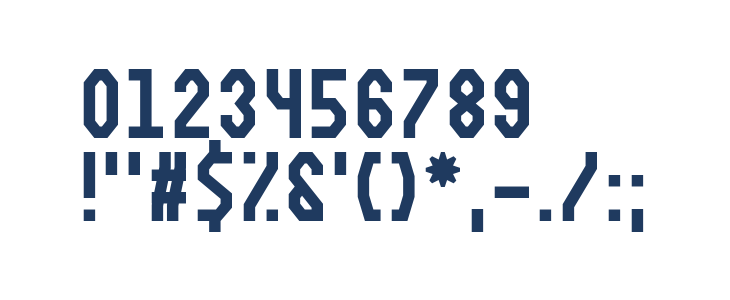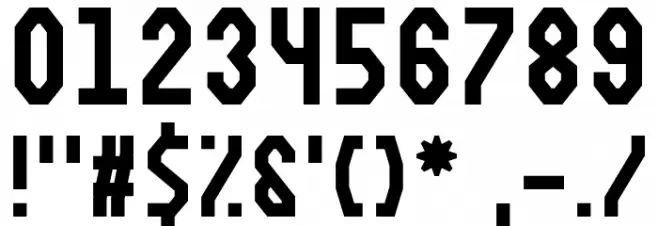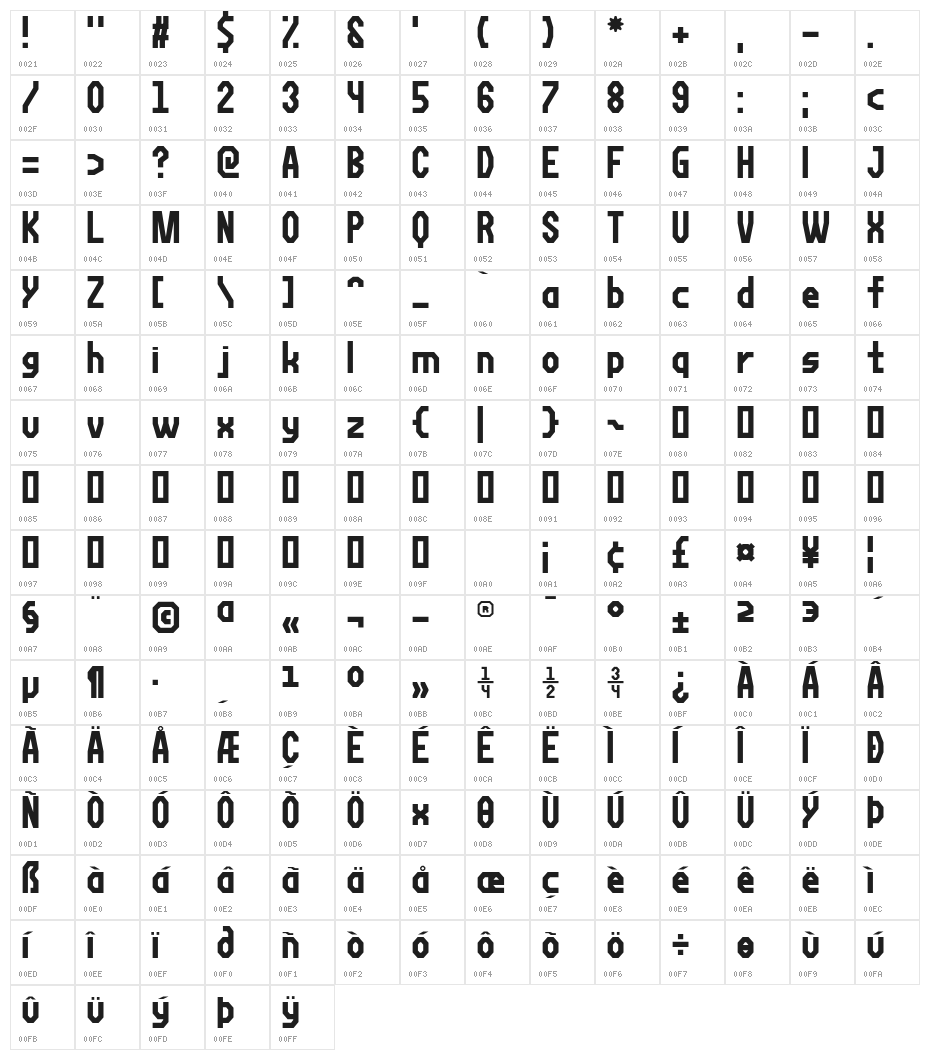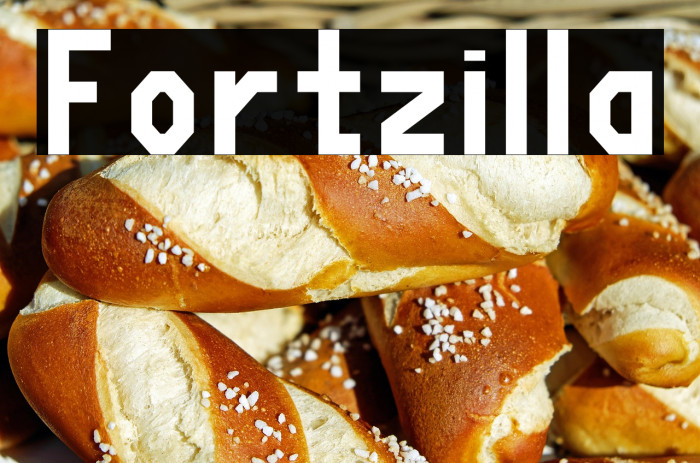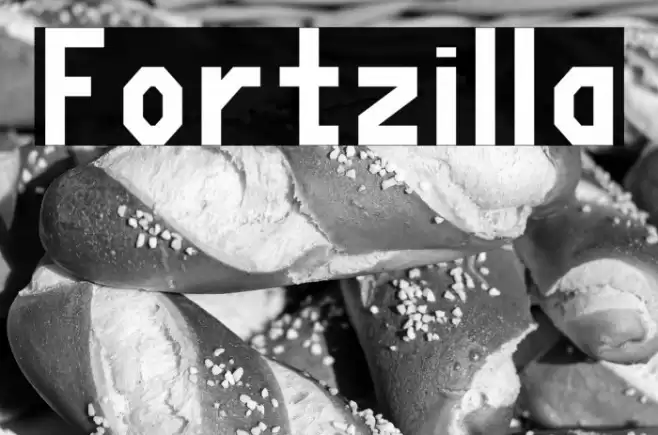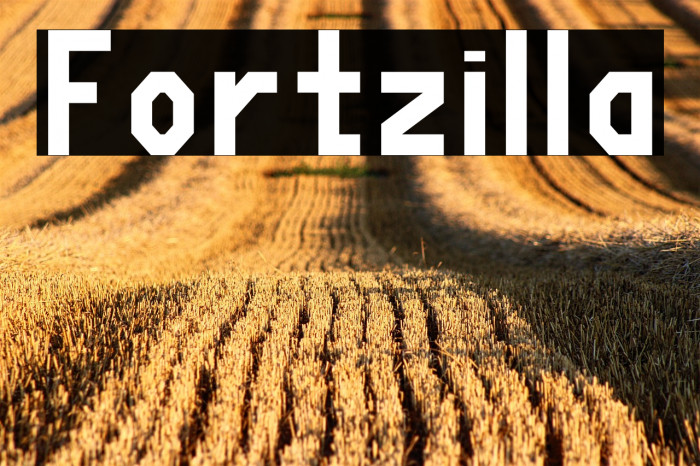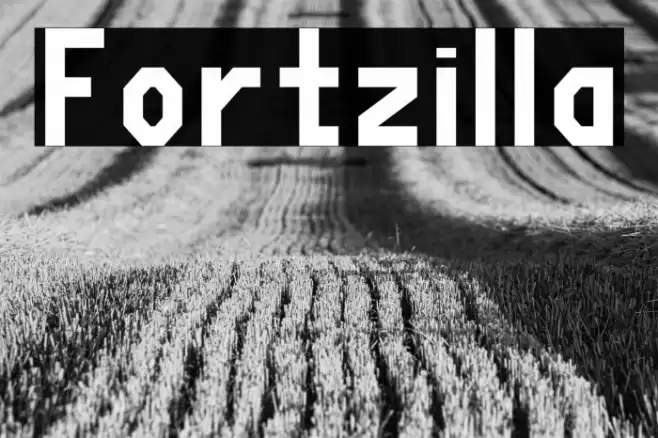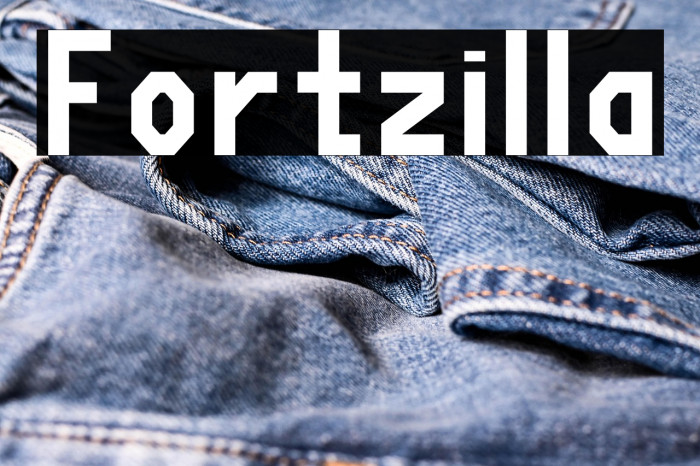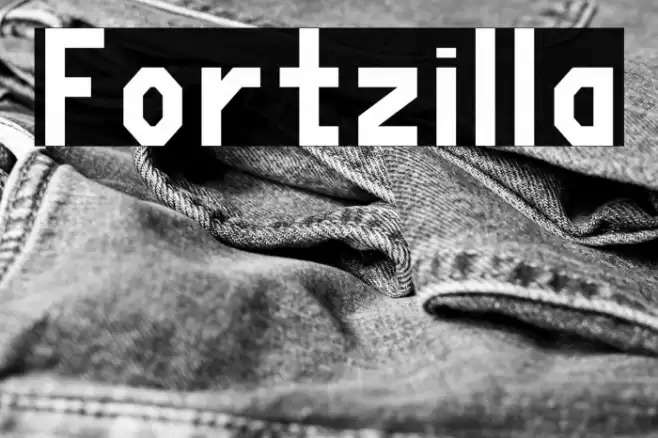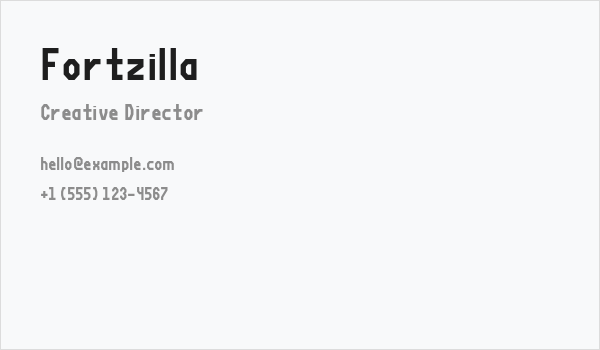
Fortzilla Font
Fortzilla Description
This font features a bold and geometric design with sharp angles and a strong presence. The uppercase letters are uniform in height, creating a cohesive and structured appearance. The lowercase letters maintain the same angular style, offering a unique and modern look. Numbers and special characters are designed to match the boldness and geometric nature of the alphabet, ensuring consistency across all characters. The font's distinct style makes it suitable for attention-grabbing headlines and impactful designs.